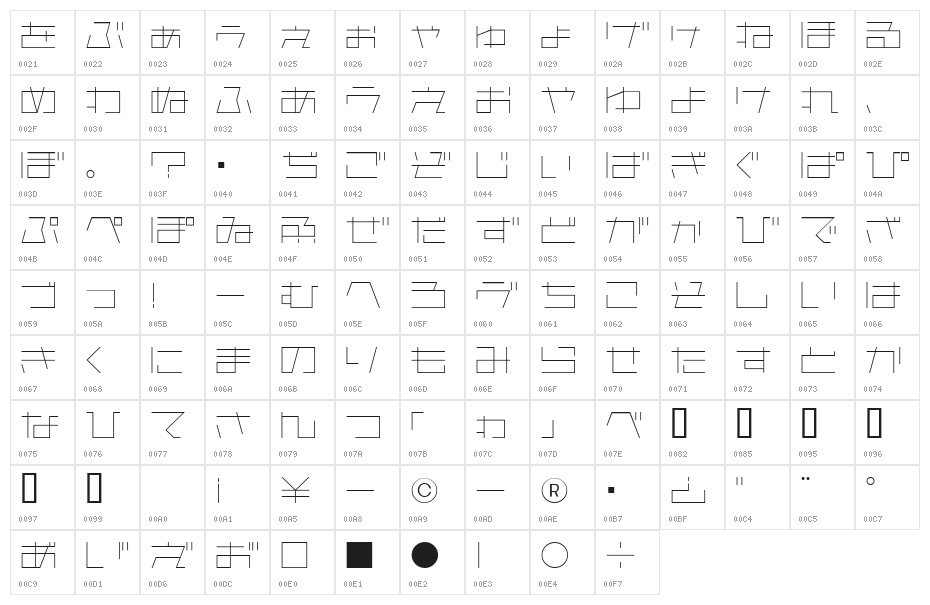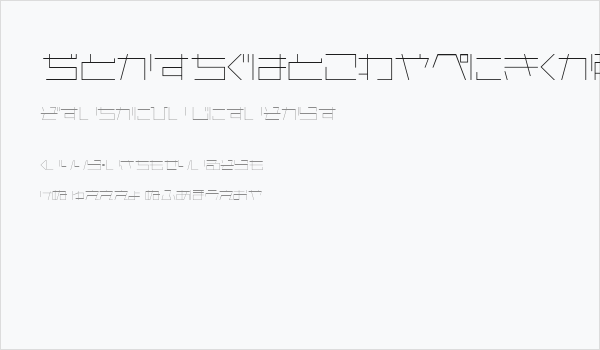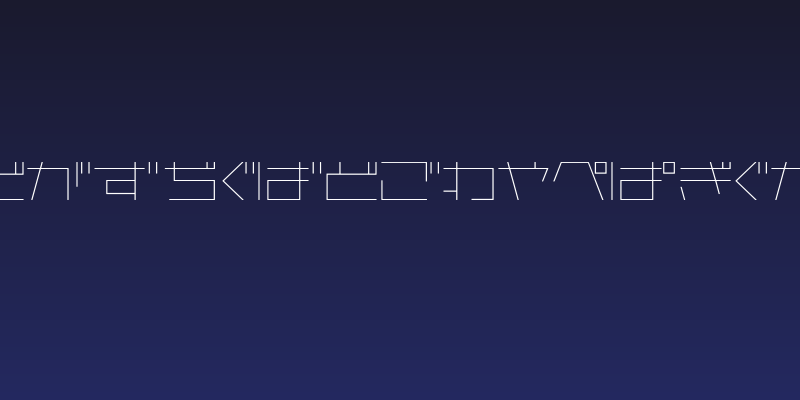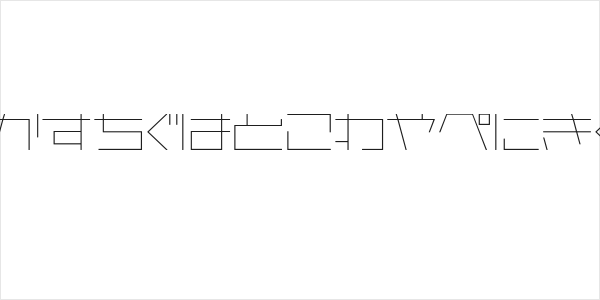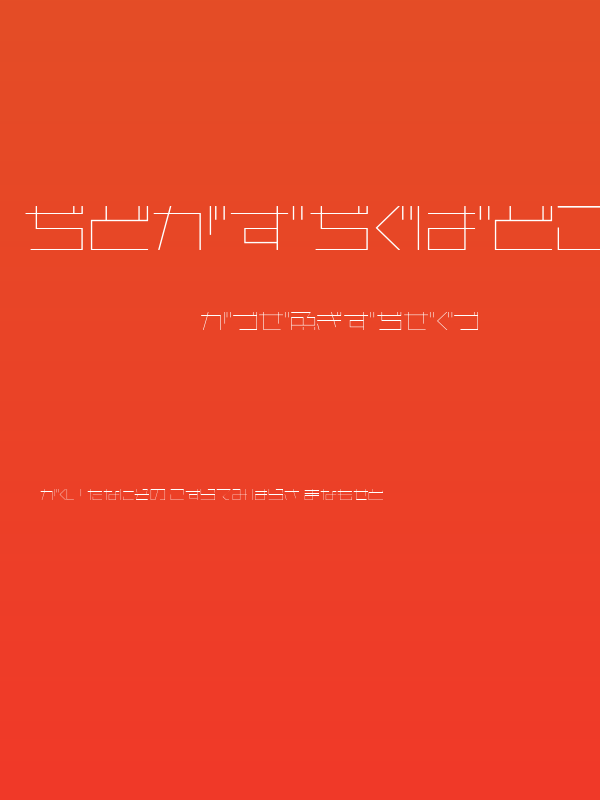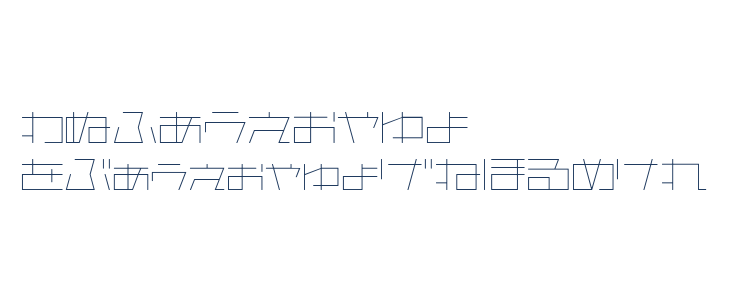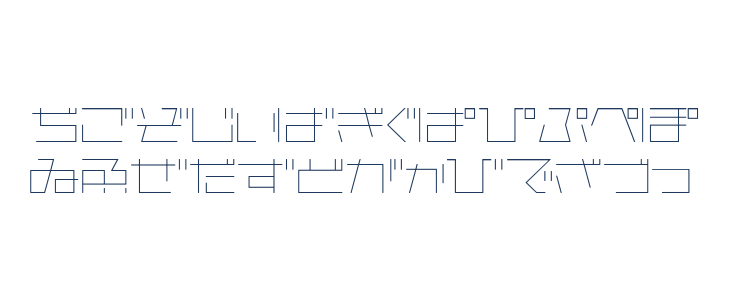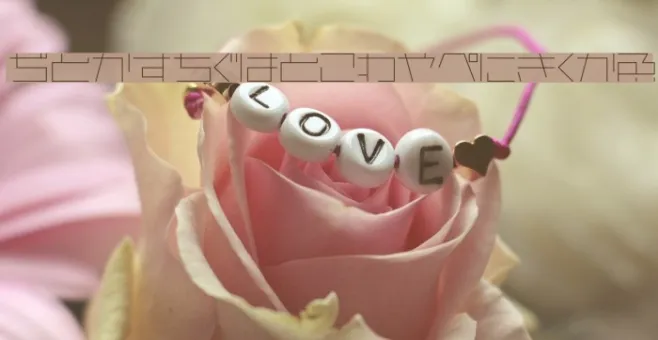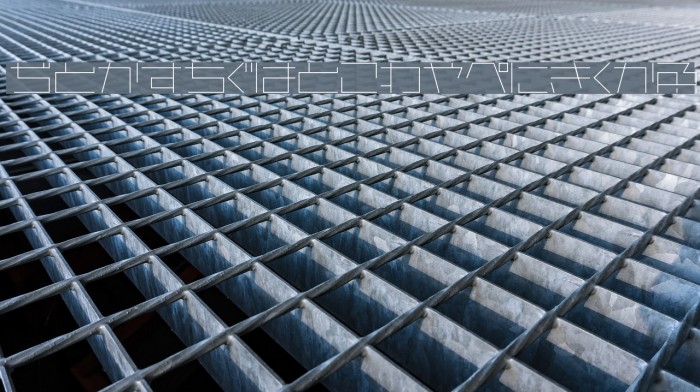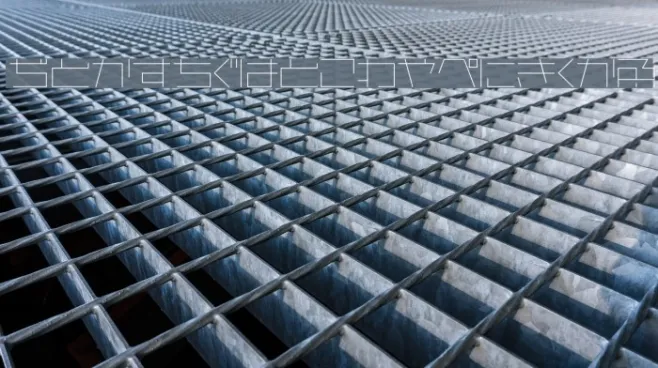
AstraHfsb07LightO Font
AstraHfsb07LightO Description
This font features a minimalist and geometric design, characterized by its thin, linear strokes and angular shapes. The characters are constructed with a consistent line weight, giving it a uniform appearance. The style is reminiscent of digital or technical fonts, with a futuristic and clean aesthetic. The spacing between characters is wide, enhancing readability and giving the text an airy feel. This font is suitable for modern and tech-oriented designs, where clarity and simplicity are prioritized.
| Use Case | Headlines, Logos, Digital Interfaces |
| Proposed Projects | Ideal for tech branding, digital interfaces, modern posters, and futuristic designs. |